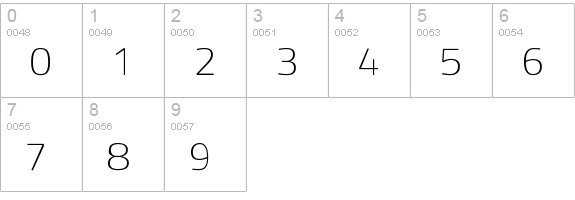
TitilliumText22L-Thin is a delicate, low-contrast variant in the TitilliumText22L typeface family \xE2\x80\x94 well suited to fashion editorial, minimal branding, and high-contrast display.
TitilliumText22L-Thin is a modern and elegant font that exudes sophistication and style. With its sleek and slim design, this font is perfect for creating a clean and professional look in your projects. The thin strokes and clean lines of TitilliumText22L-Thin add a touch of refinement to any design, making it ideal for a wide range of applications, from branding to editorial design. What sets TitilliumText22L-Thin apart is not only its aesthetic appeal, but also the fact that it is available for free. Yes, you read that right – this high-quality font can be downloaded at no cost from FontsMarket.com. Whether you are a designer looking to elevate your projects or an enthusiast seeking a stylish font for personal use, TitilliumText22L-Thin is a fantastic choice that won't break the bank. Don't miss out on the opportunity to enhance your designs with the sleek and sophisticated TitilliumText22L-Thin font – download it for free today at FontsMarket.com and bring your creative vision to life with this versatile typeface.